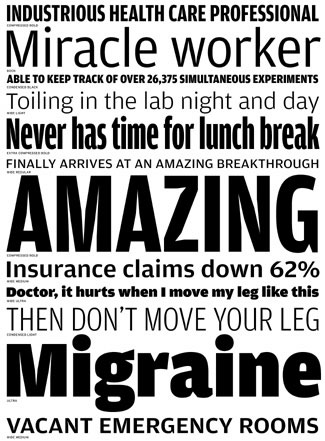
dot-font: Font Bureau's Ample Scope for Typography
A big new type family from Font Bureau thrives on a life of a thousand cuts.
The most recent release from Font Bureau, which is known for extensive type families with a lot of visual character that work especially well in publication design, is a 35-member family called Amplitude, designed by Christian Schwartz. I can only guess that it got named "Amplitude" because of its wide range of styles: seven weights in five widths, from Ultra Wide to Light Extra Compressed (and, conversely, from Light Wide to Ultra Extra Compressed). It might also reflect the way most of the variations can be used at many sizes from tiny text to huge display; Amplitude is one of those robust sans serif typefaces whose details make it readable at small sizes while giving it a recognizable character at large sizes. In this case, the distinctive features of the face come from design details that are intended to keep it legible at very small sizes indeed.
Crystalline Agate
Amplitude features "light traps": knife-like cuts in the angles of some letters that keep the ink from filling in the narrow spaces and making the type look blobby when printed at small sizes on rough paper. At tiny sizes, readers don't notice the light traps; all they see is that the type can be read easily. If you blow the same letters up to large size, however, all the details like light traps become very obvious. (When I was a typesetter in a phototype shop in the late '70s, we had a version of ITC American Typewriter produced by Compugraphic that was meant for use at text sizes; we also had a separate machine, a "headliner," for setting display sizes, with a separate filmstrip of display American Typewriter. If, instead of using the headliner, you used the lenses of the text machine to blow up the text version of this monoline, round-ended typeface to display size, it looked like a string of sausages, or a balloon sculpture.)
Schwartz observed the way these "entirely functional compensations" worked in the typefaces known as "agates," specialized faces created for the very tiniest type in newspapers -- for things like stock listings, which have to be clear and unambiguous but also have to take up as little space as possible -- and he turned these peculiarities into features that give the typeface a distinctive look at larger sizes. Then he expanded this specialized idea into a very large type family.
There's clearly a demand for typefaces like this; and the malleable nature of digital fonts makes it easy to take typefaces that were designed for use at one particular size and use them at any size at all. A number of publication designers have used the old Bell Gothic, designed by C. H. Griffith in 1938 as a functional hot-metal type to set the listings in U.S. telephone directories, as a contemporary headline face. At large sizes, those little details become exaggerated and draw attention to themselves and their quirkiness -- which is exactly the effect the designers who use the faces are after.
Font Bureau has capitalized on this demand once before, when Tobias Frere-Jones designed an updated type family, called Griffith Gothic, based on C. H. Griffith's original. Amplitude fits right into the same niche. But Griffith Gothic is a more playful face than Amplitude, with rounder forms; Amplitude also partakes of the current taste for slightly squarish forms in its rounder characters.
Invaded by Space
Some of the sharp details of Amplitude look arbitrary at large sizes: the light traps in the capital Z, for example, especially in the Bold, Black, and Ultra versions. (All of these details are more noticeable in the heavier weights.) But others simply look chiseled and give the letters an interesting texture when you see them large. While the knife-thin light traps at the interior angles of A and M make those letters look oddly wounded, the white wedges intruding into the black shapes of letters like g, n, and r give them character.
I don't think the designer had this in mind, but when I was looking at the showings of Amplitude on the Font Bureau Web site, I noticed how sharp it looked onscreen. This is not the same as a typeface designed specifically as a screen font, for use in text sizes at low resolution, but I suspect that Amplitude would work well at display sizes and large-text sizes in onscreen design.
Amplitude is designed to fit a lot of words onto a line; most of its widths are at the Condensed end of the spectrum, and even the Normal width is narrow. Only the Wide version has a generous text width; in that, it reminds me of Ole Schäfer's Fago, another large family of squarish sans serifs where the "wide" is what I'd call a normal width. While I wouldn't want to see Amplitude's narrowest widths used at small sizes, this abundance of slim options could make it very useful as a headline face.
Interrogatory, My Dear Watson
Although Amplitude doesn't have an unusually extensive character set, it does include the double-f ligatures (ff, ffi, ffl) along with the common fi and fl ligs, and it has three oddities: an interrobang (a combination of exclamation point and question mark in the same punctuation mark, which was introduced as a concept -- one that didn't catch on -- in the 1950s) and two original variations which might be called an interrocomma and a commabang. As you can guess, these last two incorporate a comma in place of the dot at the bottom of the question mark and the exclamation point. What real use they might have is hard to imagine, but they're in the fonts, and they're shown in the text samples on the Font Bureau site.
Pump up the volume
Thanks to Berry for covering this exceptional new typeface! I think Amplitude is one of the most interesting works to come out in a long time - the sort of thing one expects from a seasoned designer with many years of accumulated insight, not somebody who's still just warming up it seems!
What's most interesting is that although Schwartz has appropriated traps largely for aesthetic effect (whereas in origin they're purely functional*), Amplitude is no push-up bra: it seems to have superb technical underpinnings in terms of its distribution of styles, including proper associations in the Cartesian space (like how the Wides also have a huge x-height). And although it's not the first font to use traps decoratively (FF Bradlo might hold that honor) it does the best job of it that I've seen, barring some small aberrations.
Trap the light fontastic
The adoption of 'traps' in letters within typeface design is nothing new and designers of phone directories know all about this. To take this to the extreme and use trapping as a design facet in a typeface could be interpreted by some as a naïve gesture. You only has to look at the example of the uppercase 'Z' to see the problems with Amplitude when used large. Granted, to find something new in typeface design is hard although designers sometimes try too hard. The font is fine generally as yet another variation-on-a-theme sans serif - a choice for the designer wanting a subtle variation from the norm. It is obvious the font is in no way close to the elegance of Spiekermann's Meta or De Groot's wonderful Thesis. However, I look forward to young Schwartz's future creations with interest.